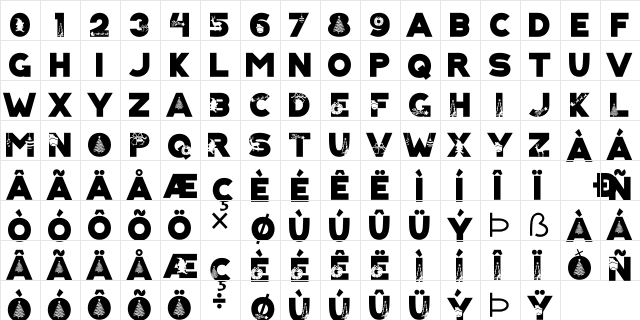
KRIS KRINGLE Regular
| Designer | Sealoung+Saiful Anwar |
Design Context for KRIS KRINGLE Typeface
KRIS KRINGLE is a composed and adaptable typeface that performs quietly and consistently across a wide range of design contexts.